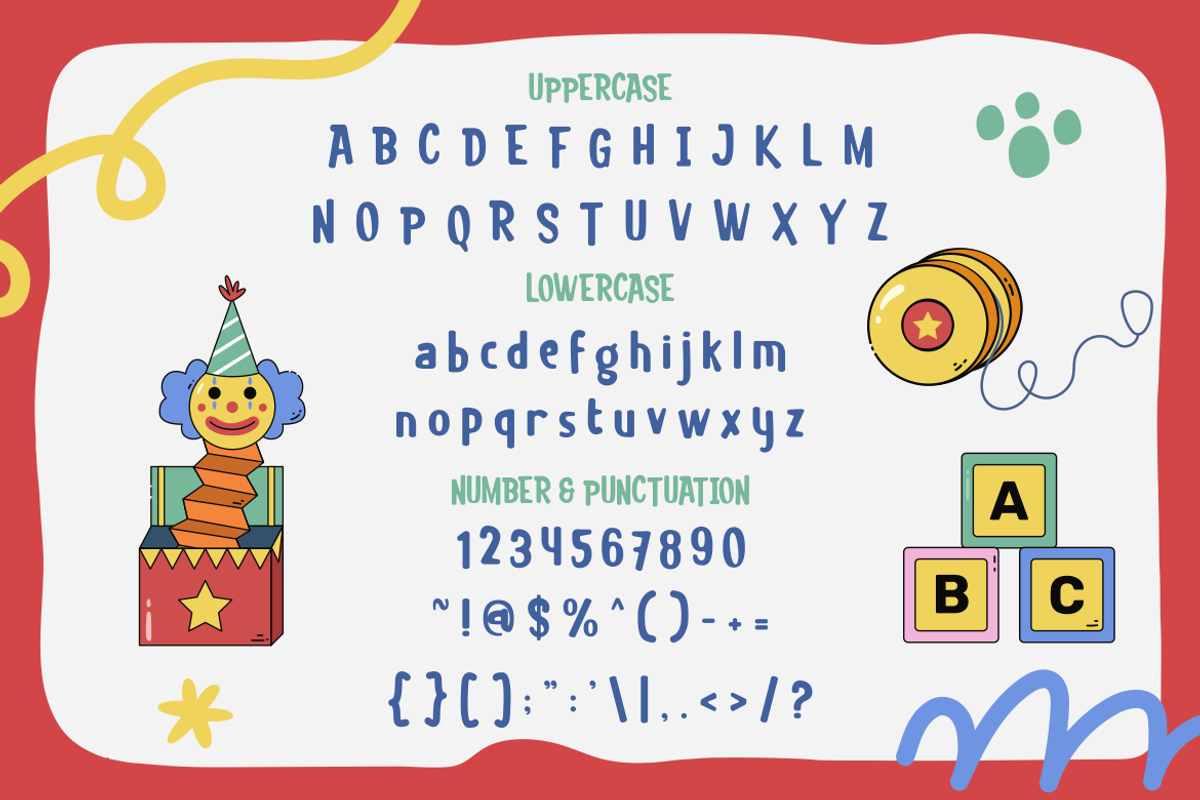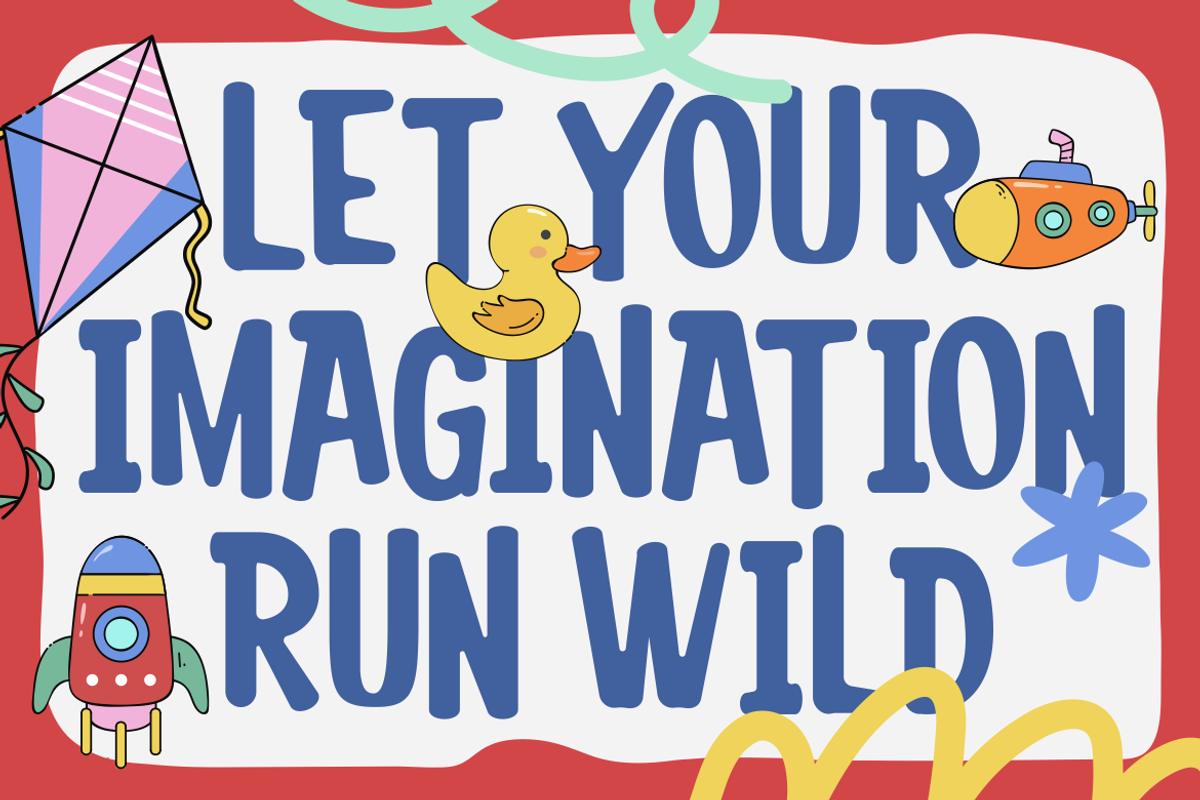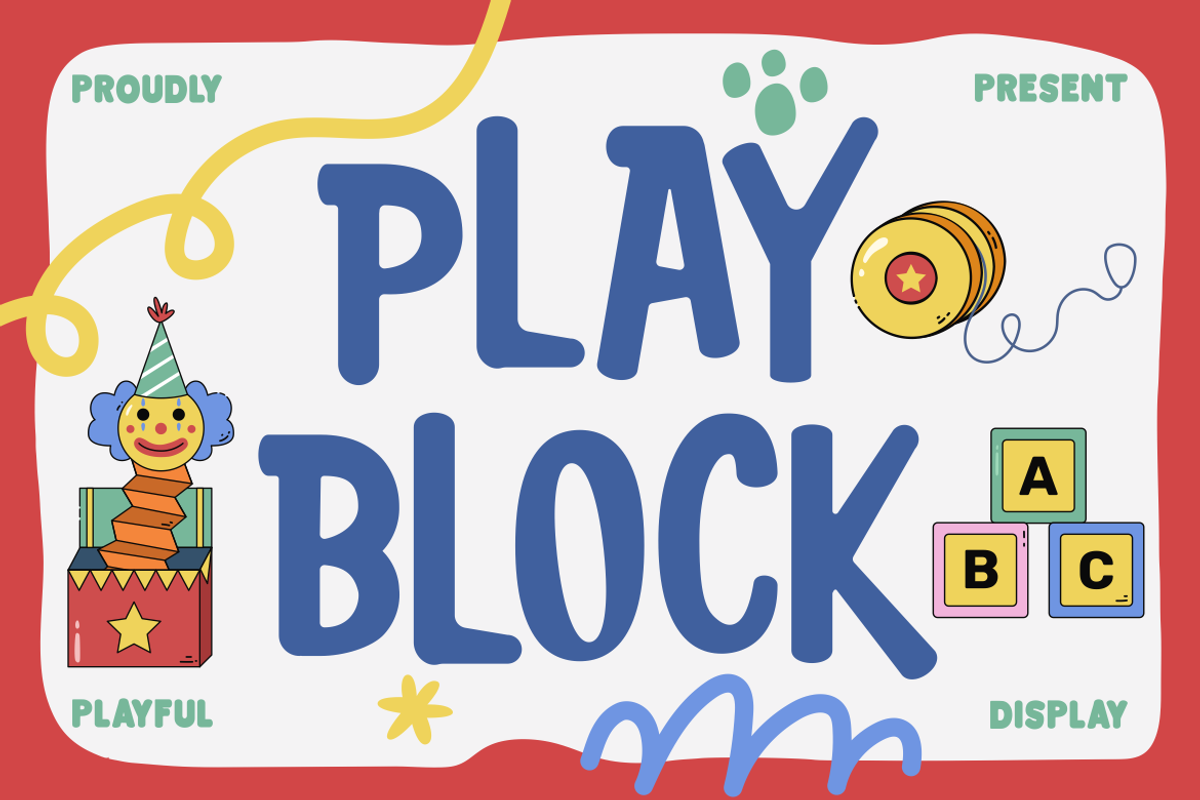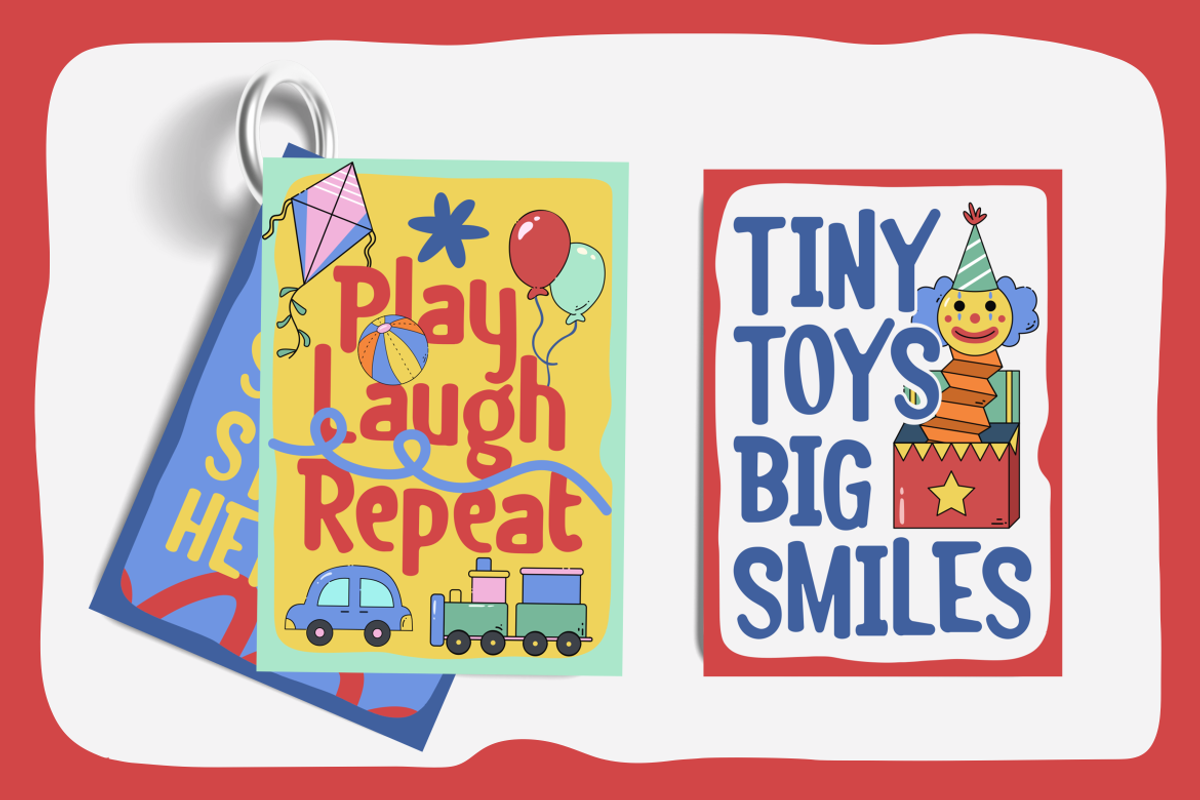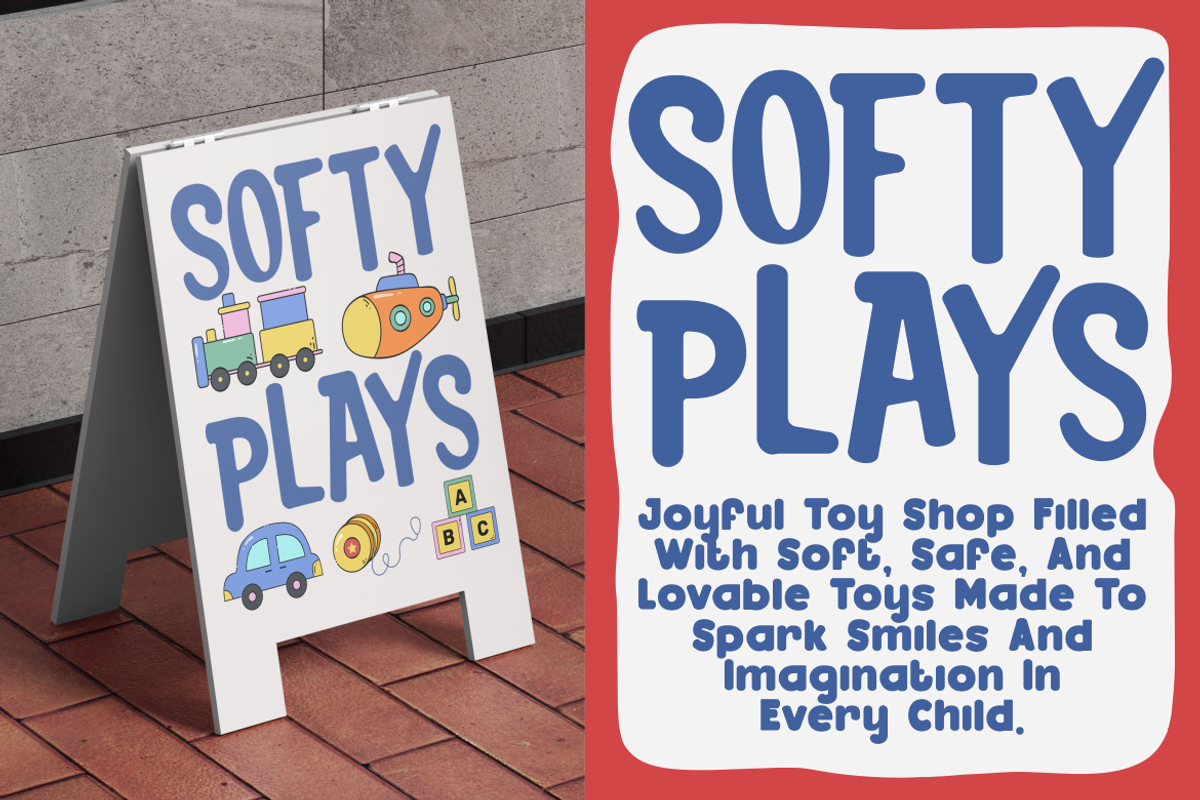
Play Block Playful Display Font
Play Block Playful Display Font features bold rounded letterforms with soft edges and friendly proportions. The characters appear thick and compact, creating a strong and stable visual presence. Each letter carries slightly uneven curves that give the typeface a lively personality. Stroke weight remains consistent, which keeps the text clear and readable at large sizes. The height of the characters feels balanced with moderate ascenders and short descenders. This structure produces a playful rhythm across words and titles. Corners stay smooth rather than sharp, reinforcing the cheerful tone of the design. The letter shapes lean toward rounded geometric construction with a casual handcrafted influence. Play Block Playful Display Font delivers a fun display style suited for expressive typography. The forms feel energetic, approachable, and easy to recognize in branding layouts.
This font works effectively for branding projects aimed at children and family oriented businesses. It fits logos for toy stores, kids activity centers, daycare services, and educational brands. The friendly structure also supports packaging titles for toys, games, and children products. Designers can apply it to posters, promotional headlines, and advertising materials. The bold shape performs well in signage, book covers, and magazine titles for young audiences. It also suits greeting cards, invitation designs, and creative crafting projects. Businesses focused on playful experiences benefit from its approachable character. The lettering helps build cheerful brand identities that attract attention and communicate fun. Play Block Playful Display Font supports logos, stickers, quotes, and packaging designs with strong playful typography.